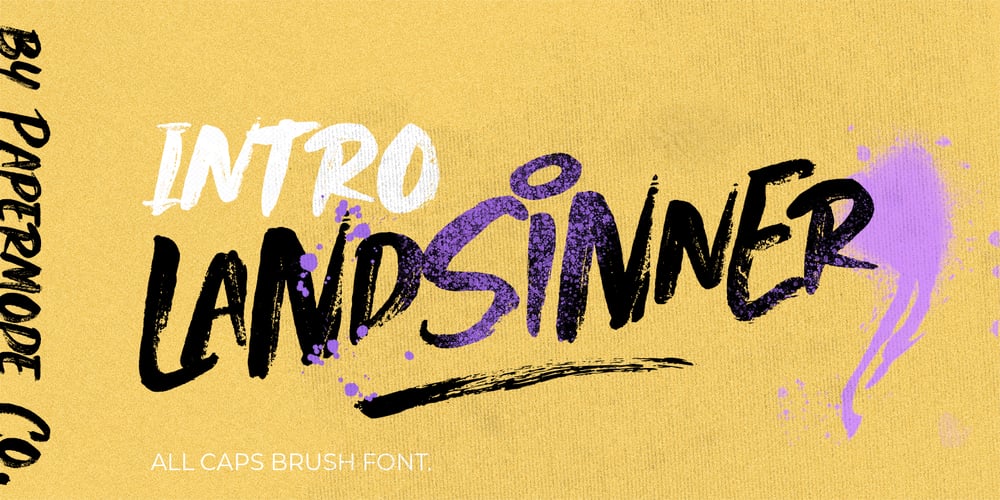
Landsinner Brush Font Family was designed by Mira Kartika Sari and published by Papermode Co. Landsinner Brush contains 1 styles and family package options. Landsinner is a rough textured brush font, made from natural paint brushes, giving it a natural look.Try Landsinner, and let her fun and elegant excitement make you happy and enhance your creativity! You can use this font very easily.–UppercaseIncluded Multilingual Support